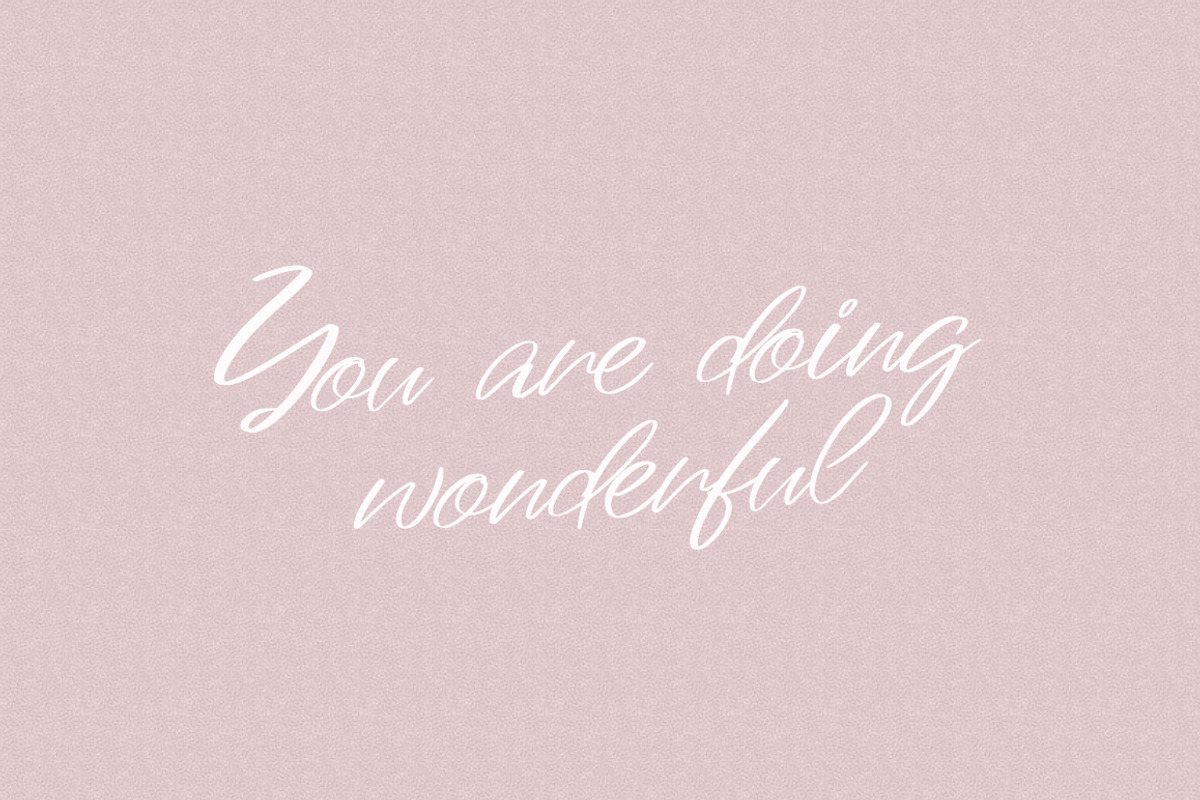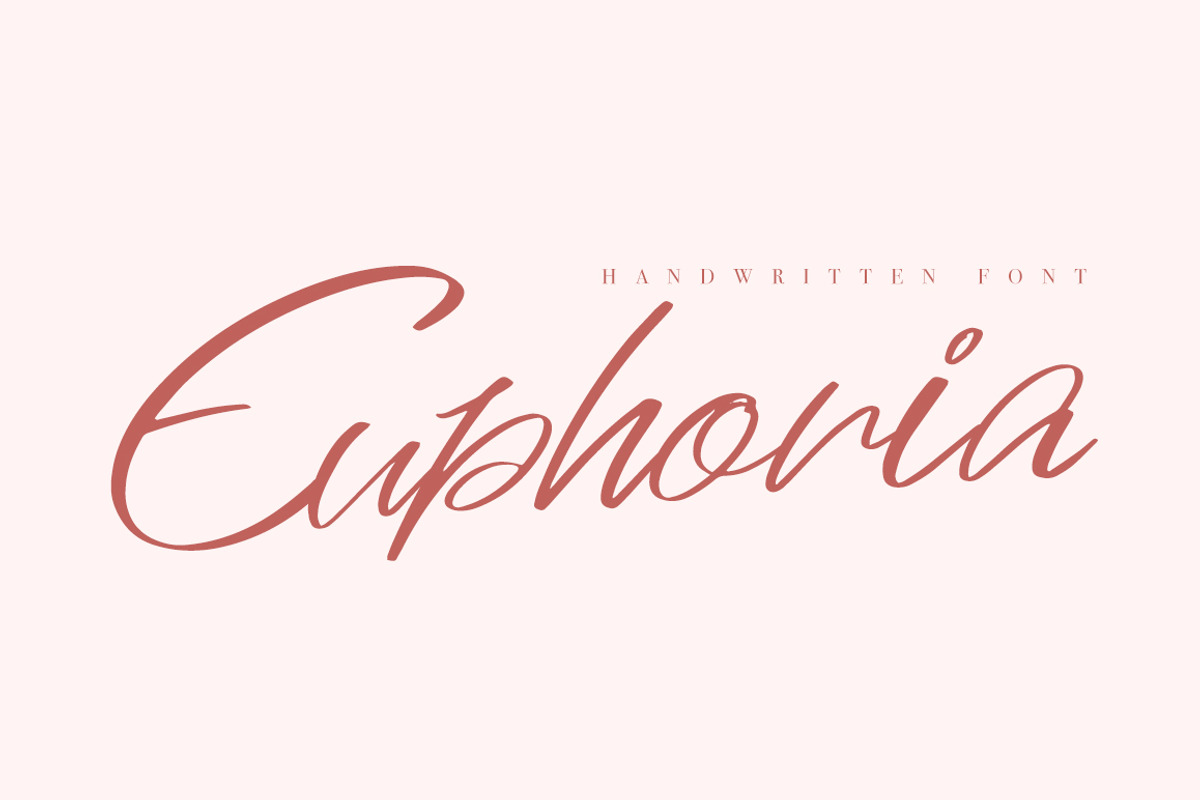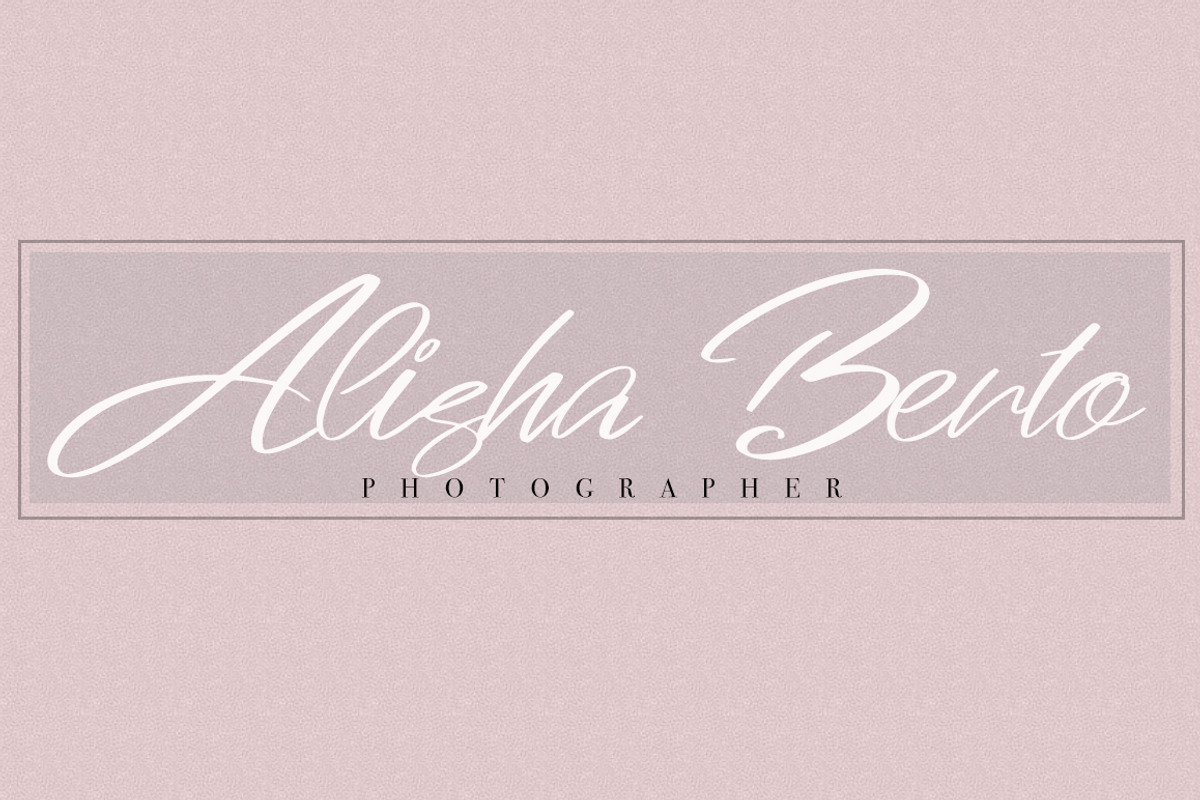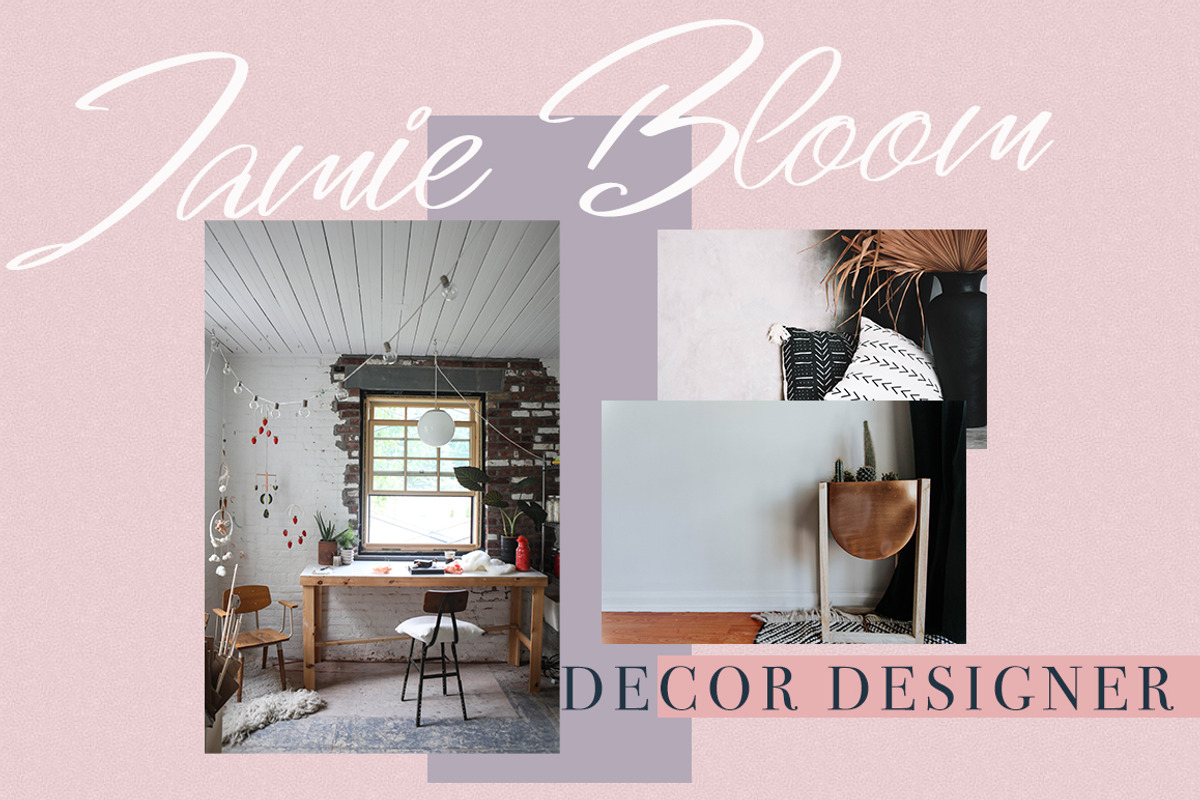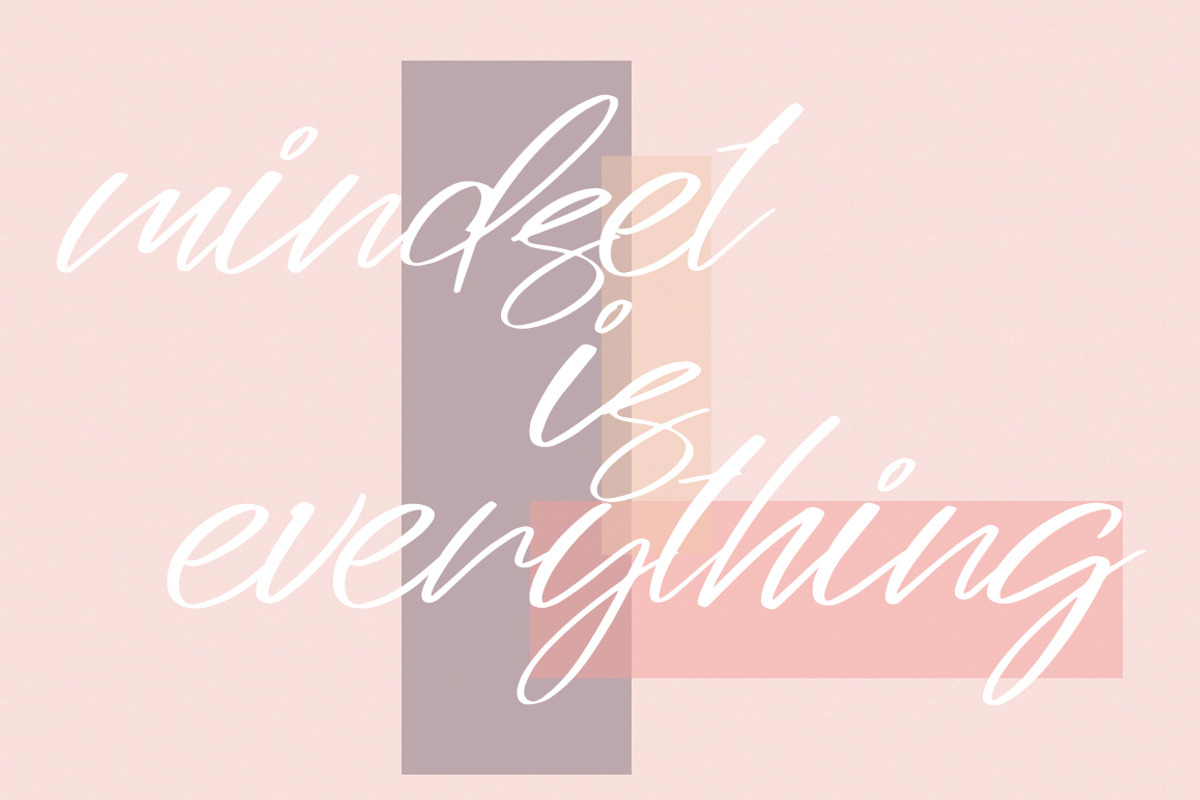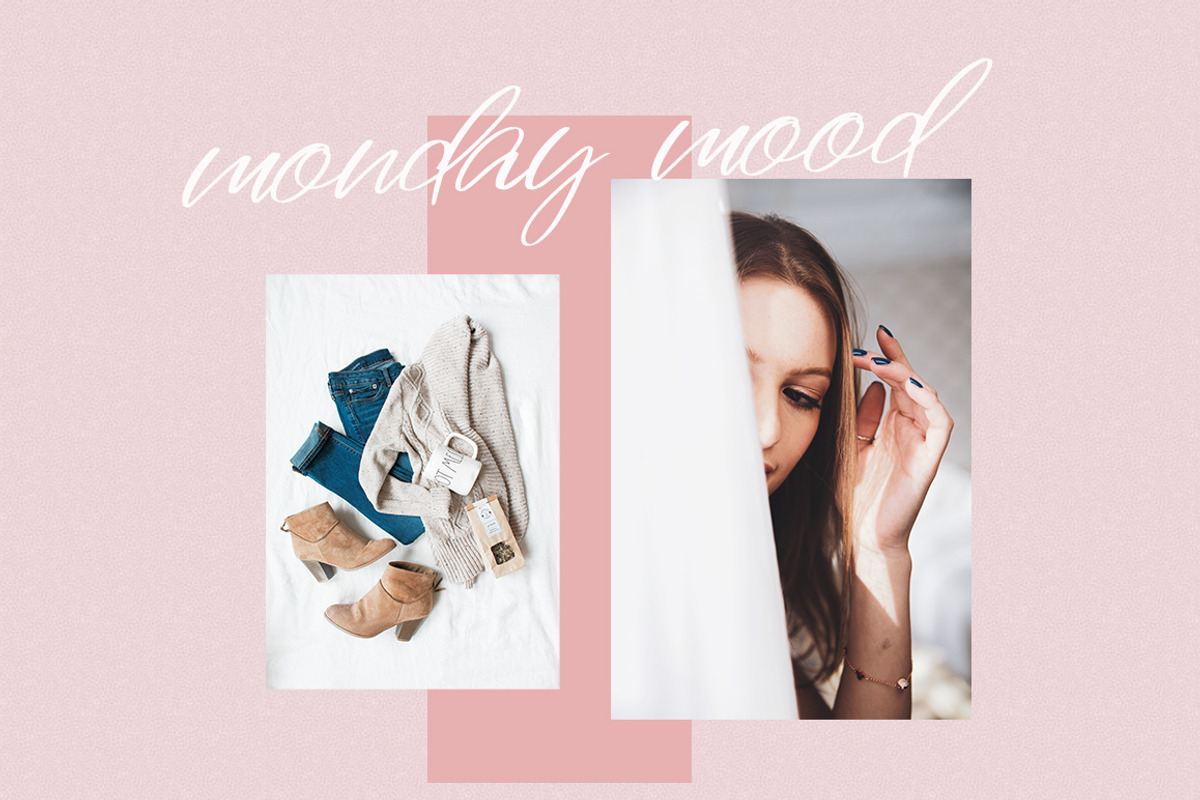
Euphoria
Euphoria Is casual font, every single letters have been carefully crafted to make your text looks beautiful. Perfect for your Moodboard! With modern script style this font will perfect for many different project ex: logo, photography, watermark, quotes, blog header, poster, wedding, branding, logo, fashion, apparel, letter, invitation, stationery, etc.
The font is super versatile and suitable for any project.